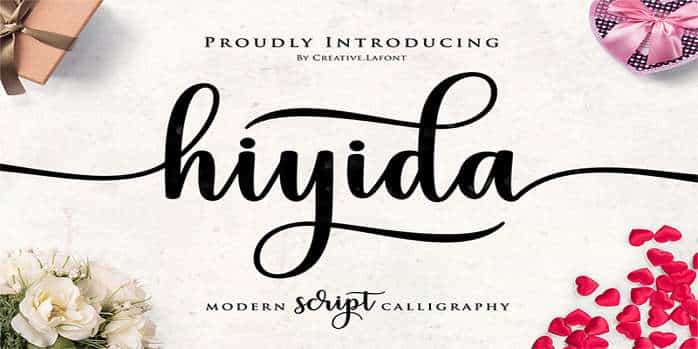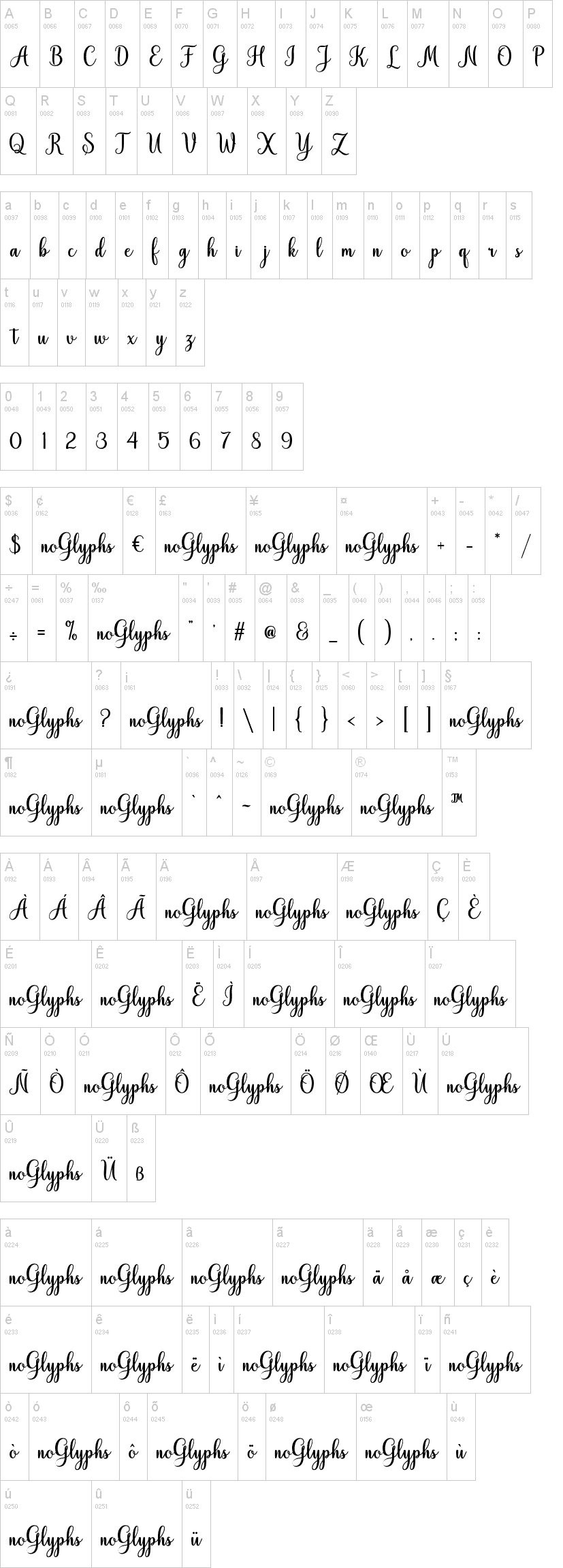
Introducing Hiyida Script! Hiyida Script is modern script font, each single letters have been maximized and well designed to make your text looks more beautiful. With modern script style this font will perfect for many different project, example: wedding, invitation, greeting card, poster, name card, quote, blog header, brand, logo, fashion, clothing, letter, stationery and etc.